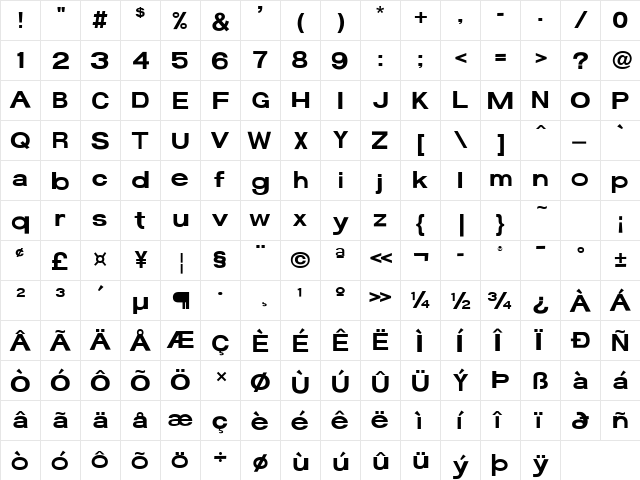
17B-Fun Regular
Design Context for 17B-Fun Typeface
17B-Fun trades formality for fun, with bouncy, characterful letterforms that bring warmth and energy to any project.
Great for children's books, toy packaging, family event branding, and casual consumer-facing design.
Font Pairing: Pairs well with a rounded or humanist sans for body copy, maintaining the friendly tone without relying on 17B-Fun to carry extended reading.
Pro Tip: Avoid using 17B-Fun for long passages of text — it works best for headlines, labels, and short calls to action.